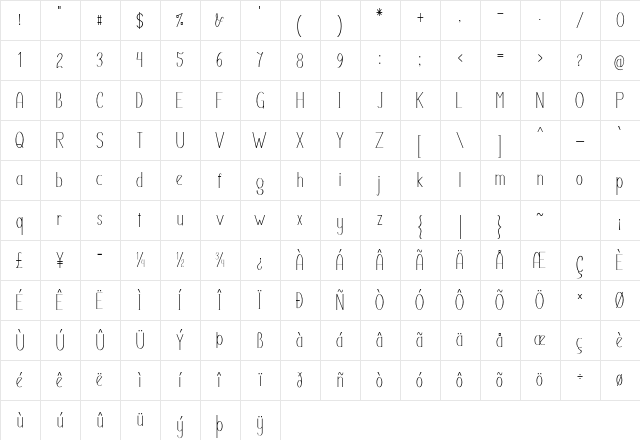
Greden Regular Free Font
Greden Regular
Greden Family
Design Context for Greden
Greden is a composed and adaptable typeface that performs quietly and consistently across a wide range of design contexts.